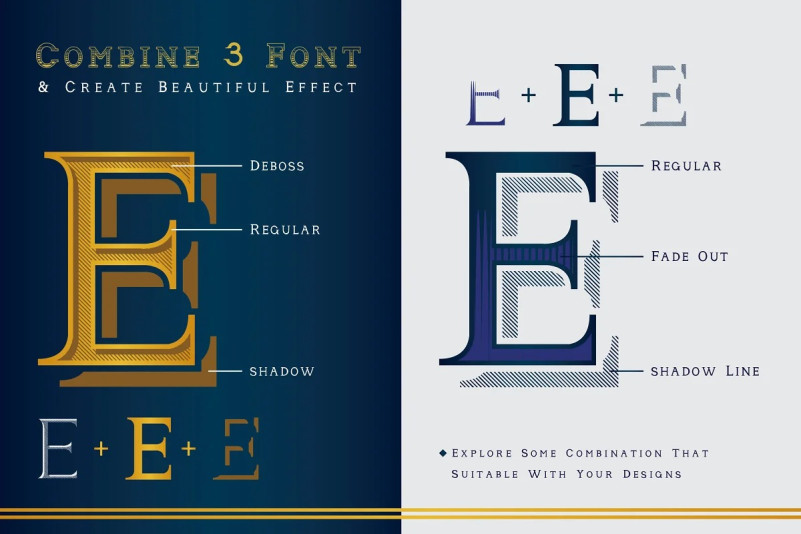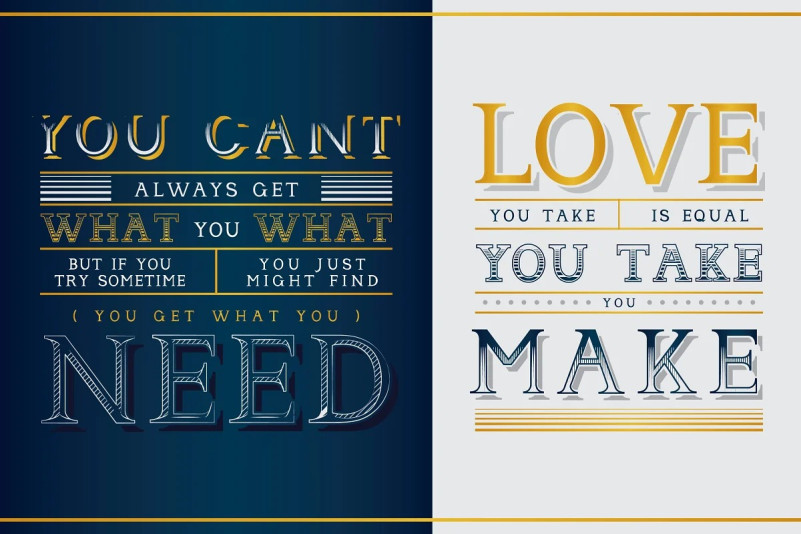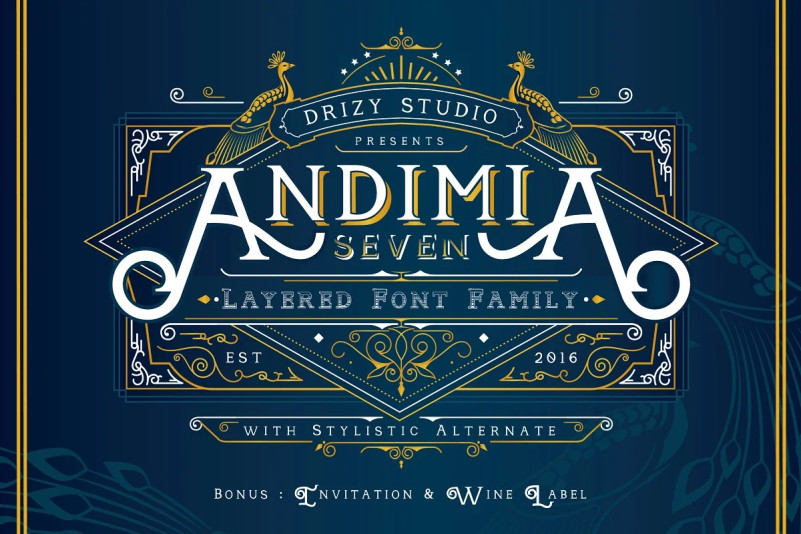
Andimia Font
Andimia Font , another serif font with classic style. The font comes with all the basic Latin glyphs, punctuation, and numerals. Create your own style as you want with 7 Layers, Stylistic Alternates that Allows you to mix and match pairs of letters to fit your design, and Ornaments Pack to decorate your work with this font.
Andimia is a display font that provides a more clean and elegant design. You can use this font for various purposes, such as logos, wedding invitations, t-shirts, posters, labels, greetingcard, letterhead, book cover, and much more! Andimia included bonus ‘Wedding Invitation’ and Wine Label Templates.